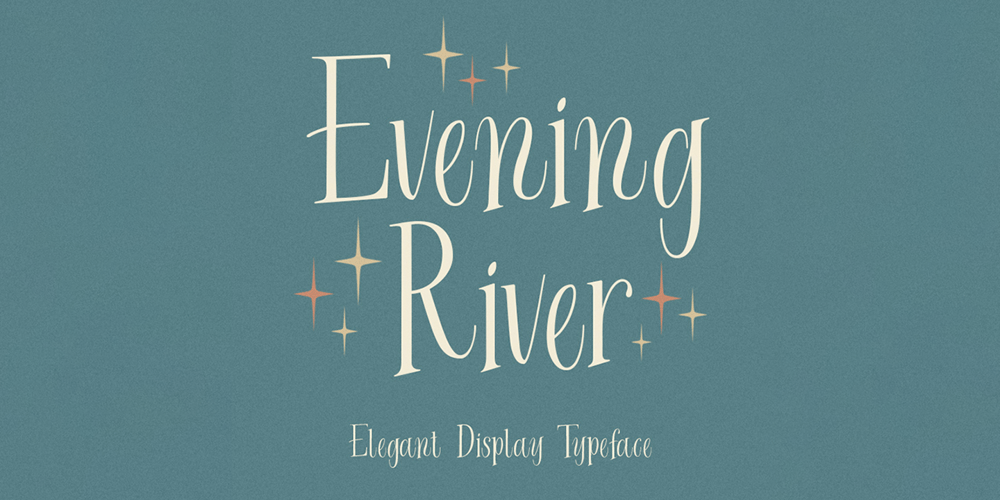
Evening River Font Family was designed by Hendry Juanda and published by Letterhend. Evening River contains 1 styles and family package options. Introducing, Evening River an elegant display typeface. this font is perfect for headline, packaging, branding, etc.